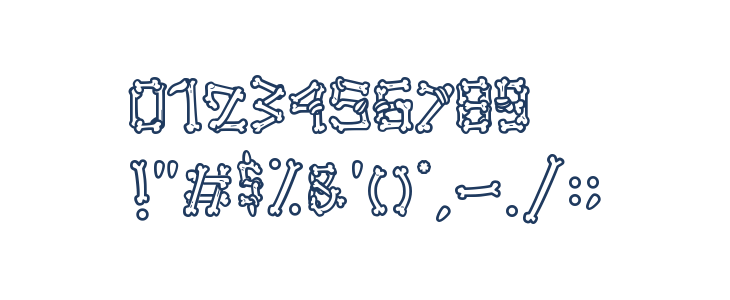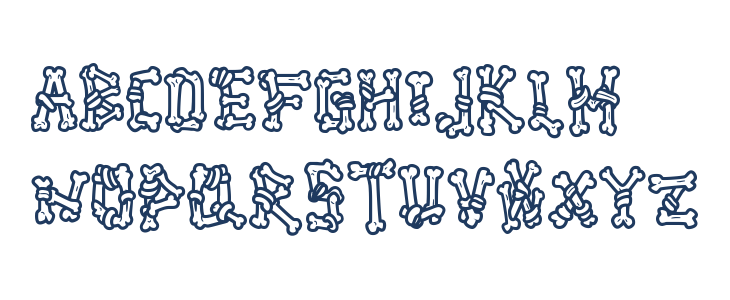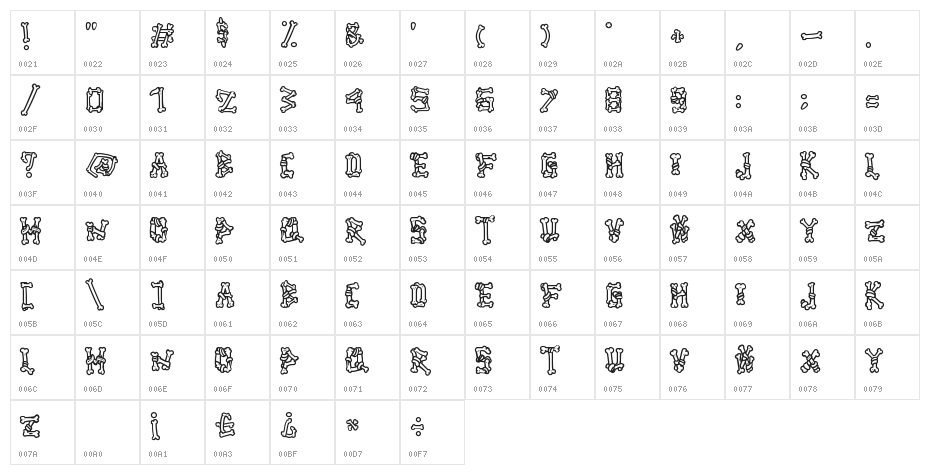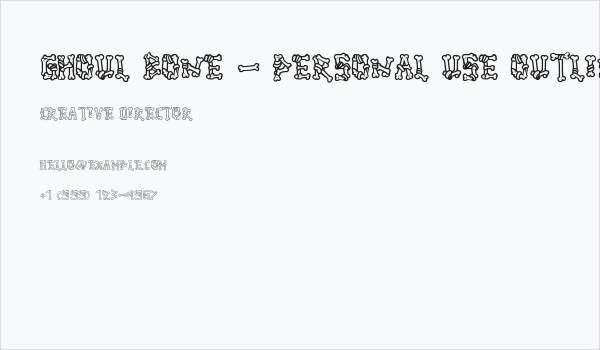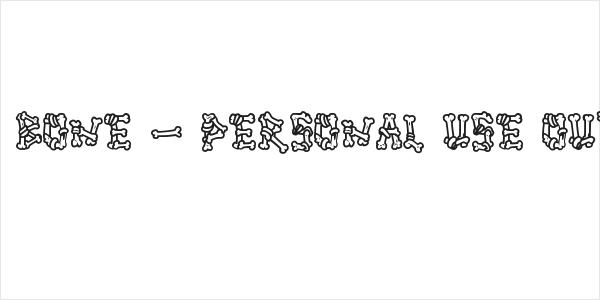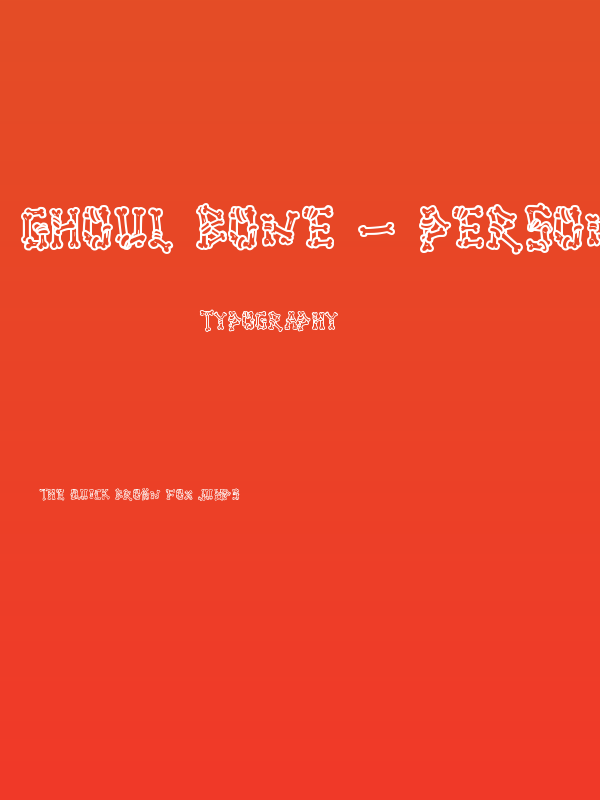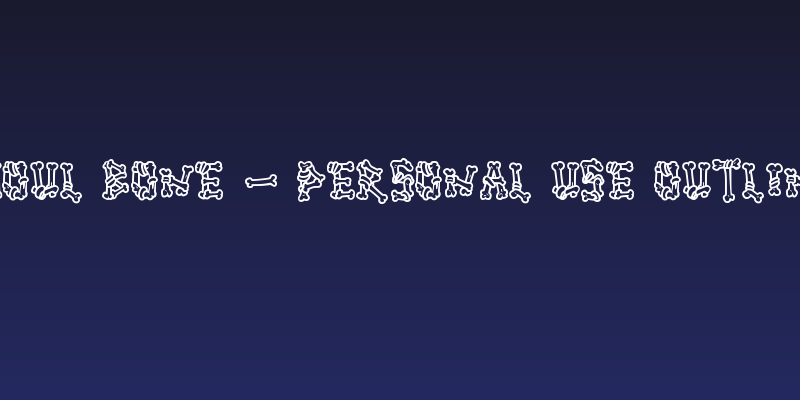
Ghoul Bone - Personal Use Outline Font
Ghoul Bone - Personal Use Outline Description
A playful, outline-style decorative font where each character is constructed from cartoonish bone shapes, giving a skeletal and spooky appearance. The lines are bold and the forms are irregular, emphasizing a hand-drawn, whimsical effect.
| Overall Style | Decorative, Playful, Spooky |
| Use Case | Headlines, Posters, Themed Logos |
| Proposed Projects | Halloween posters, spooky invitations, themed party flyers, children's event branding, horror-themed graphics. |